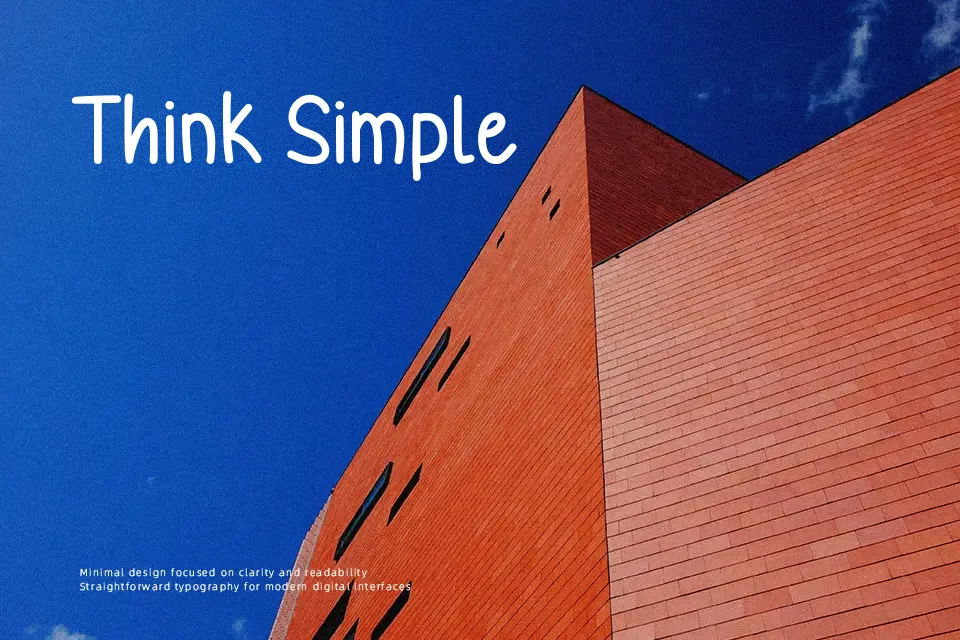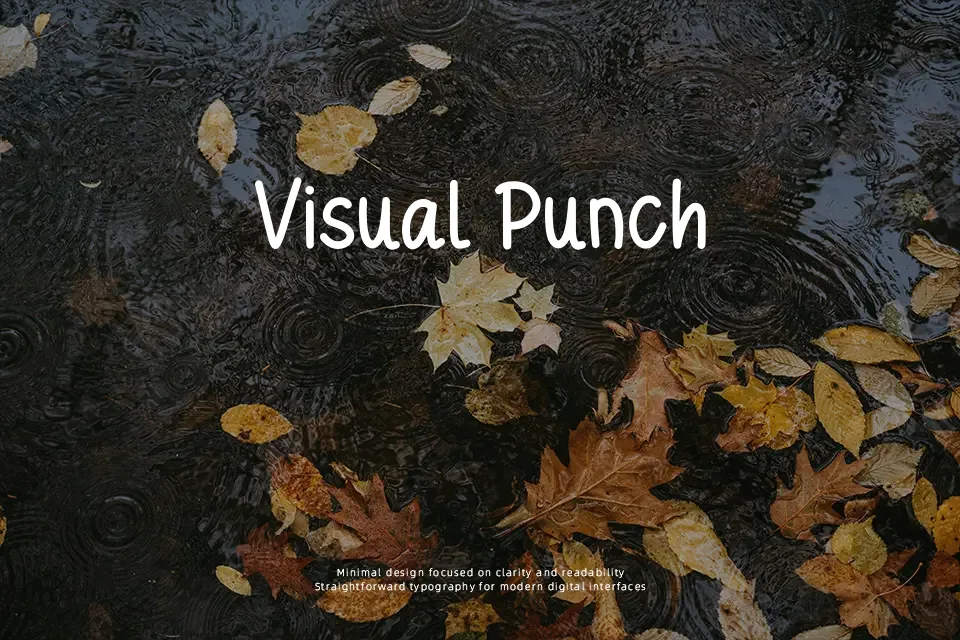
Doggie Font
Doggie Font has a bouncy cartoon structure with rounded terminals, uneven stroke rhythm, and open spacing that keeps short words easy to read. The letters feel hand-drawn rather than polished, which gives it a relaxed and friendly tone. It works nicely on pet-themed packaging, children’s event flyers, classroom labels, or playful social posts where personality matters more than precision. The charm comes from its slightly quirky shapes, especially in larger headlines. That same looseness can become a drawback in serious branding, dense layouts, or anything that needs a cleaner professional edge. Use it when you want warmth and character, not control.
pet shop posters,kids party invitations,playful packaging,short social headlines
body text,formal branding,legal documents,serious editorial layouts
Perfect for headline, kids, and packaging, with a cute and cartoon style.